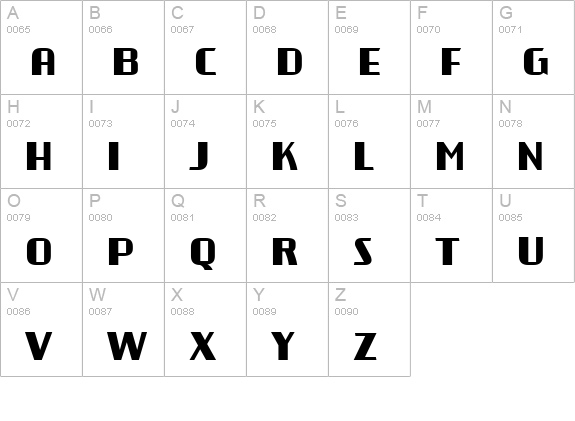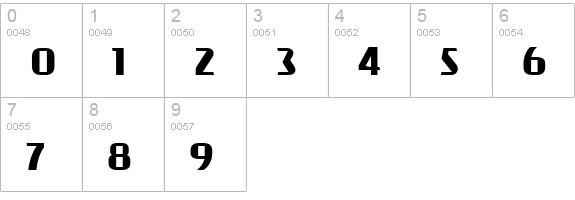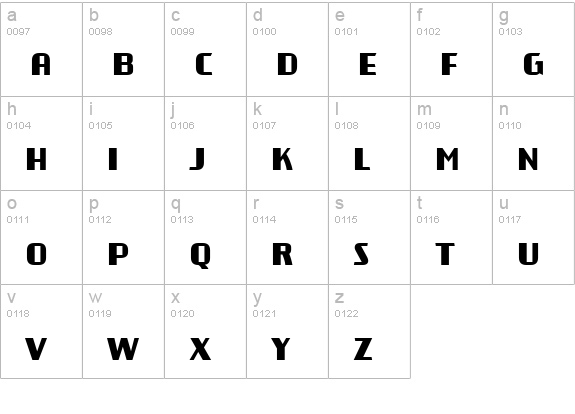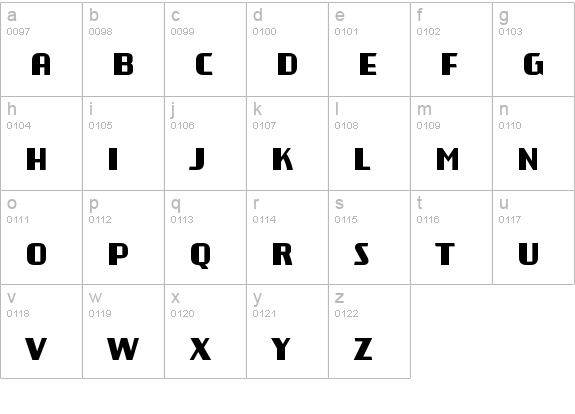
Marianas Font Details
Introducing Marianas font, a stunning and versatile typeface that effortlessly combines elegance with modernity. This exquisite font features sleek lines and graceful curves, making it perfect for a wide range of design projects. Whether you're creating a sophisticated wedding invitation, a sleek logo, or a stylish branding campaign, Marianas font is sure to elevate your work to new heights. One of the best things about Marianas font is that it is completely free to download! That's right, you can get your hands on this beautiful font without spending a dime. Simply head over to FontsMarket.com and download Marianas font to add a touch of sophistication to your designs. With its timeless appeal and endless possibilities, Marianas font is a must-have for any designer looking to make a statement.